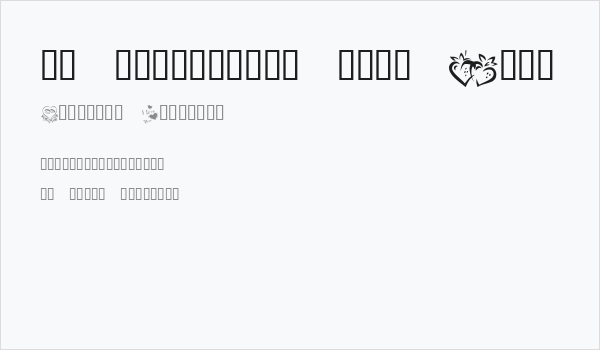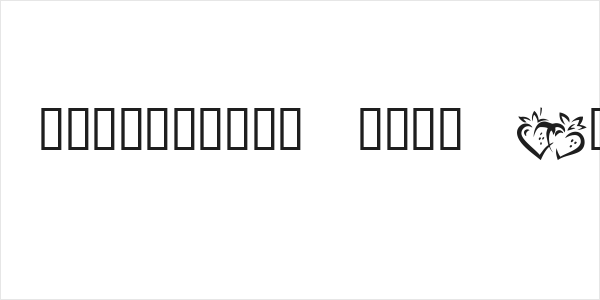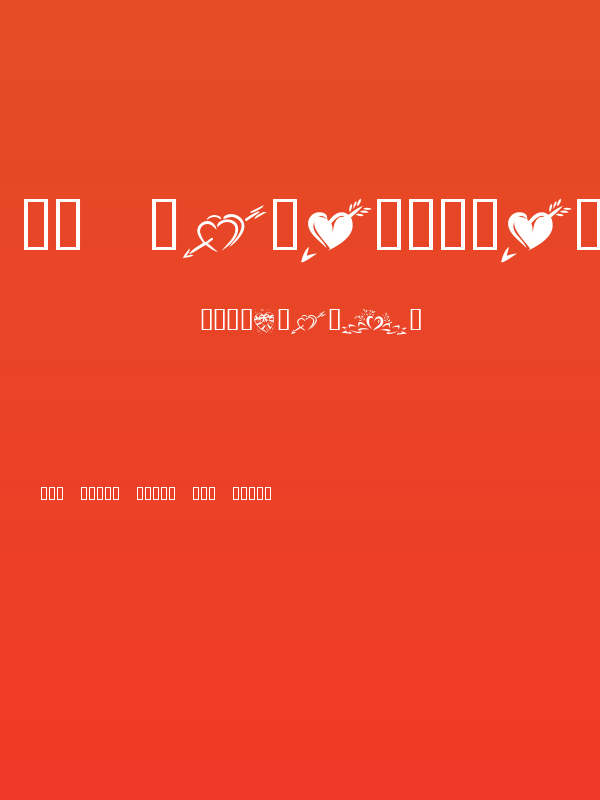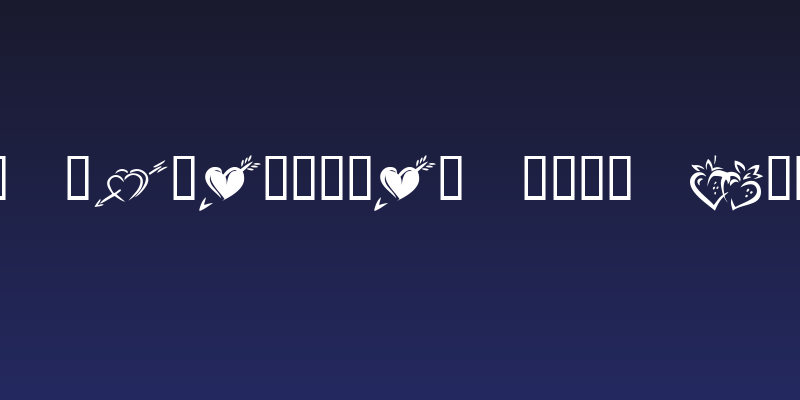
KR Valentines 2006 Four Font
KR Valentines 2006 Four Description
This decorative font is themed around Valentine's Day, featuring a variety of heart motifs and romantic elements. The characters are designed with intricate details, incorporating hearts, arrows, and floral patterns that evoke a sense of love and affection. The style is playful and whimsical, making it ideal for projects that require a touch of romance and creativity. The font includes a mix of uppercase and lowercase letters, numbers, and special characters, all adorned with unique Valentine-themed embellishments.
| Proposed Projects | Ideal for Valentine's Day cards, romantic invitations, wedding stationery, and love-themed posters. |